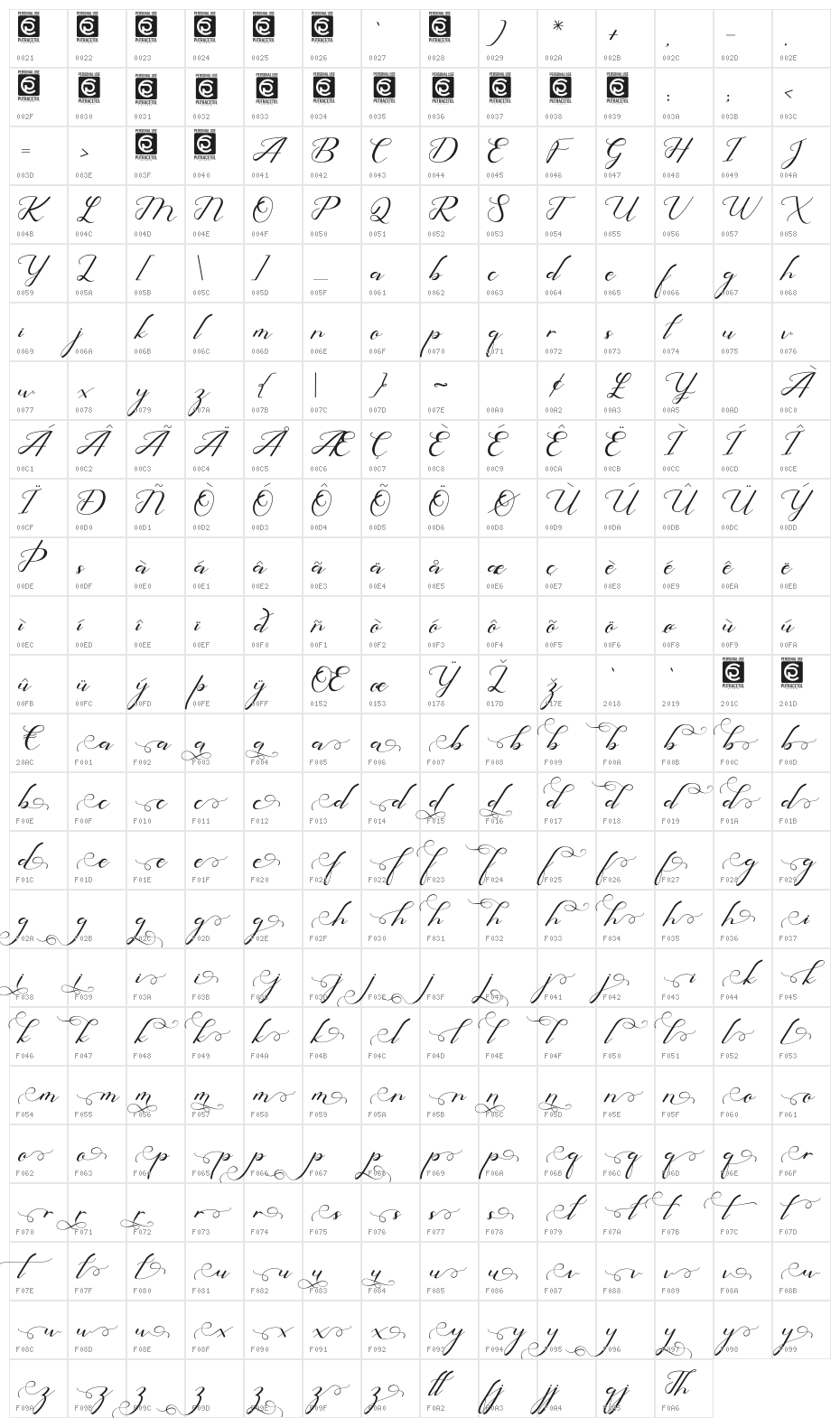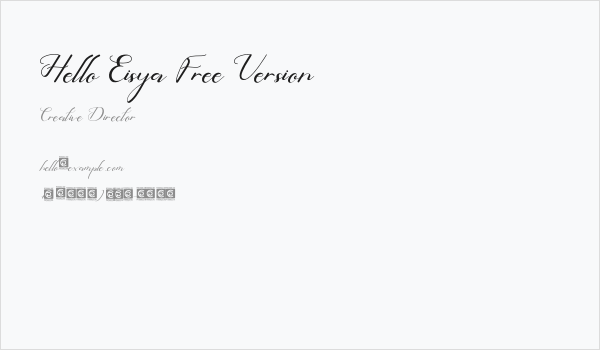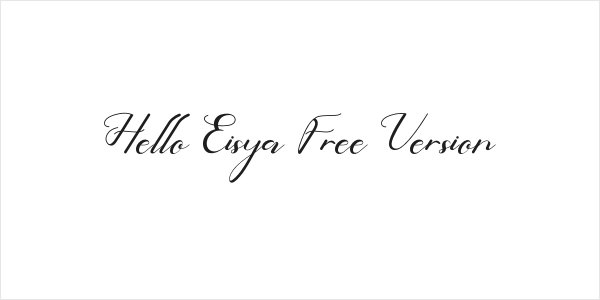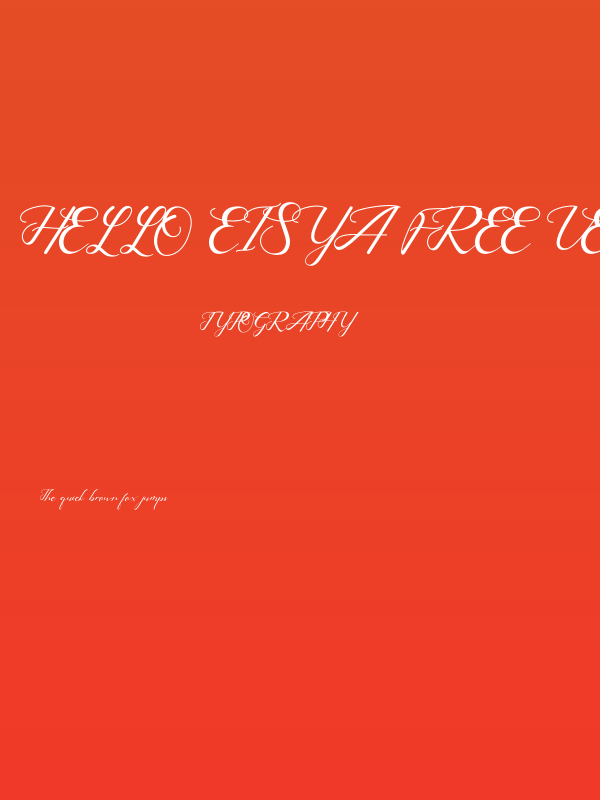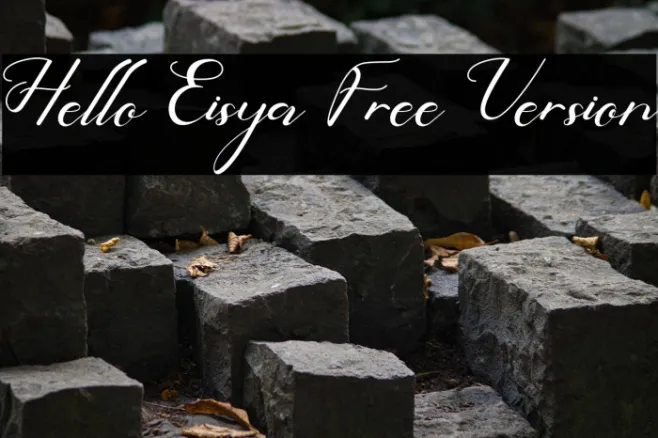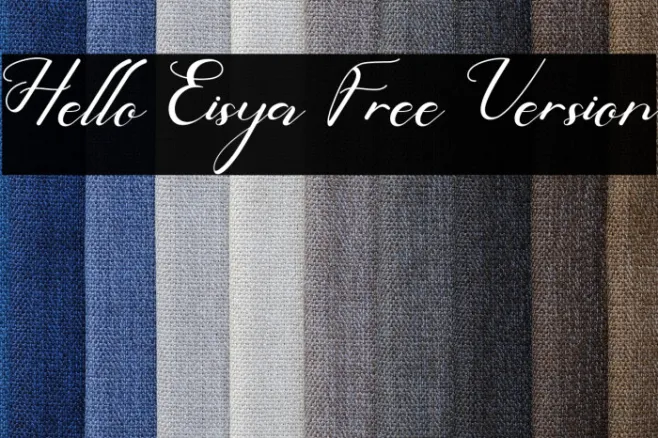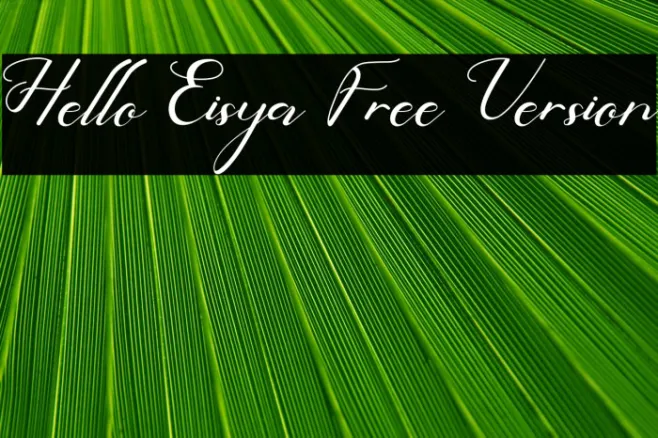
Hello Eisya Free Version Font
Hello Eisya Free Version Description
This elegant script font features flowing, interconnected letters with a classic calligraphic style. The uppercase letters are ornate and sophisticated, while the lowercase letters maintain a graceful and fluid appearance. The font includes a full set of uppercase and lowercase letters, numbers, and a selection of special characters. Its design is reminiscent of traditional handwriting, with a modern twist that adds a touch of elegance and refinement. The strokes are smooth and consistent, with a medium contrast that enhances readability while maintaining a decorative flair.
| Proposed Projects | Ideal for wedding invitations, greeting cards, branding, and elegant logo designs. |